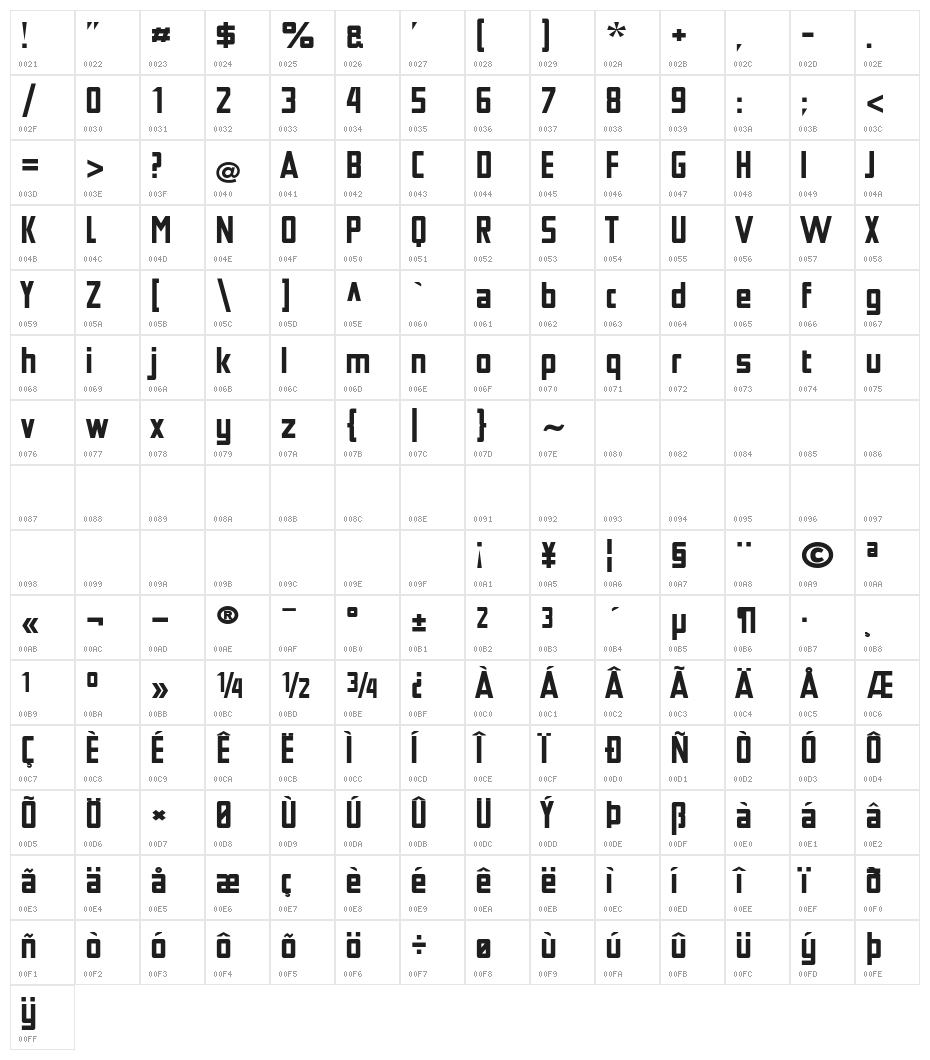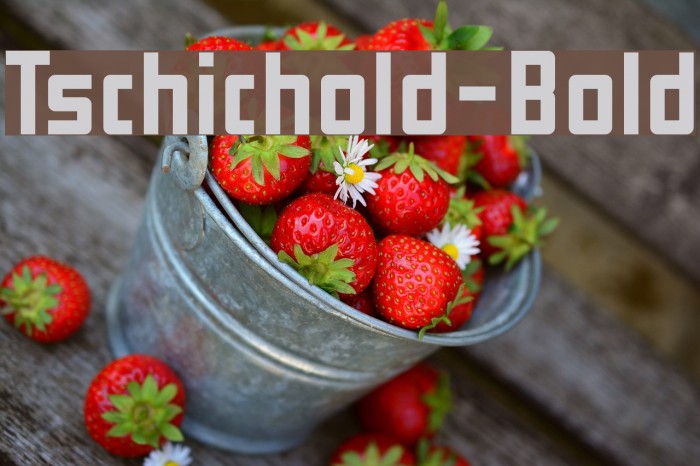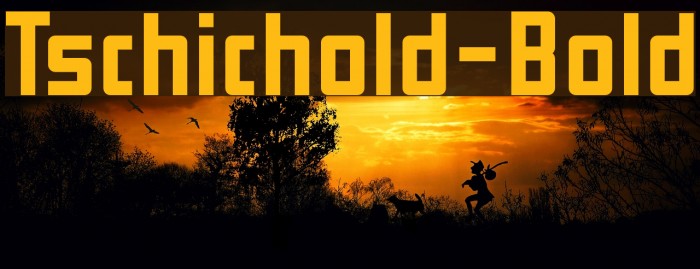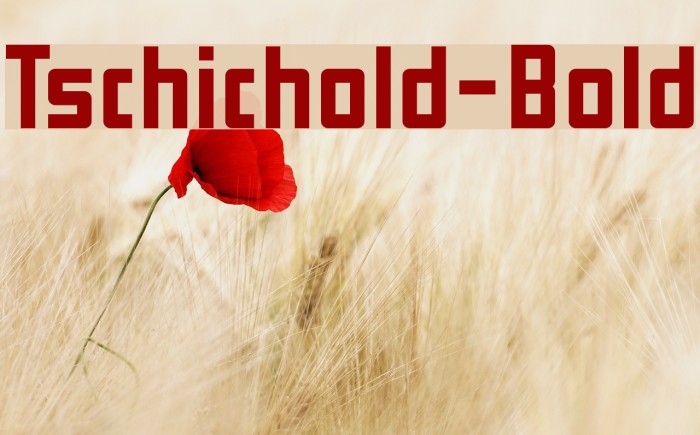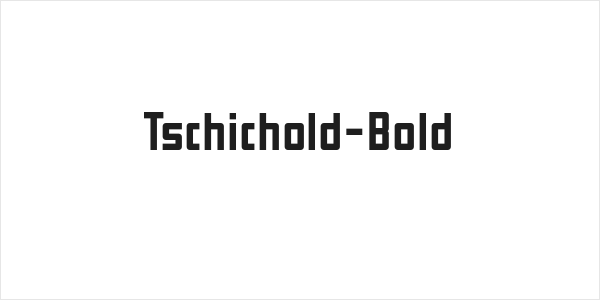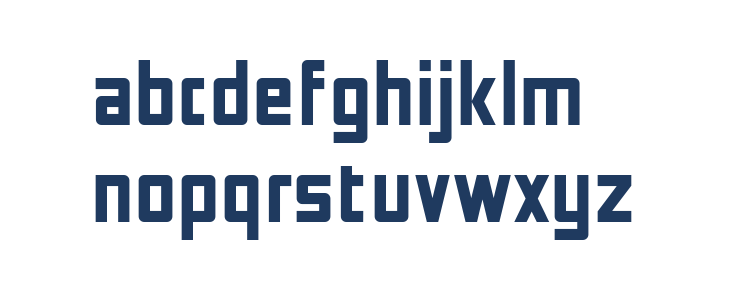
Tschichold-Bold Font
Tschichold-Bold Description
This font features a bold, geometric design with clean lines and a strong presence. The uppercase letters are uniform in height, creating a cohesive look, while the lowercase letters maintain a similar geometric structure, enhancing readability. The numerals are distinct and easy to distinguish, making them suitable for various applications. Special characters are well-defined and integrate seamlessly with the overall style. The font's boldness and clarity make it ideal for attention-grabbing headlines and impactful designs.
| Proposed Projects | Ideal for branding, posters, headlines, and any design requiring a bold statement. |